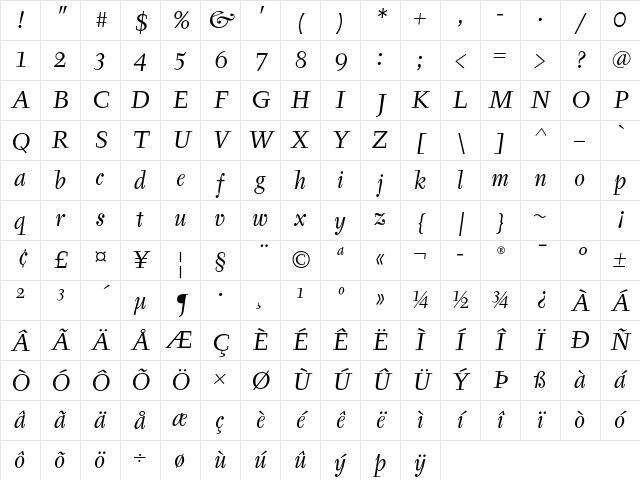
Tyfa ITC Std BookItalic
Style: BookItalic
Designer: Frantisek Storm and Josef Tyfa
Design Context for Tyfa ITC Std
Tyfa ITC Std is a composed and adaptable typeface that performs quietly and consistently across a wide range of design contexts. The slanted form adds forward momentum and visual energy.
Pro Tip: Use Tyfa ITC Std for emphasis, pull quotes, and subheadings where its slanted energy can add rhythm to the layout.